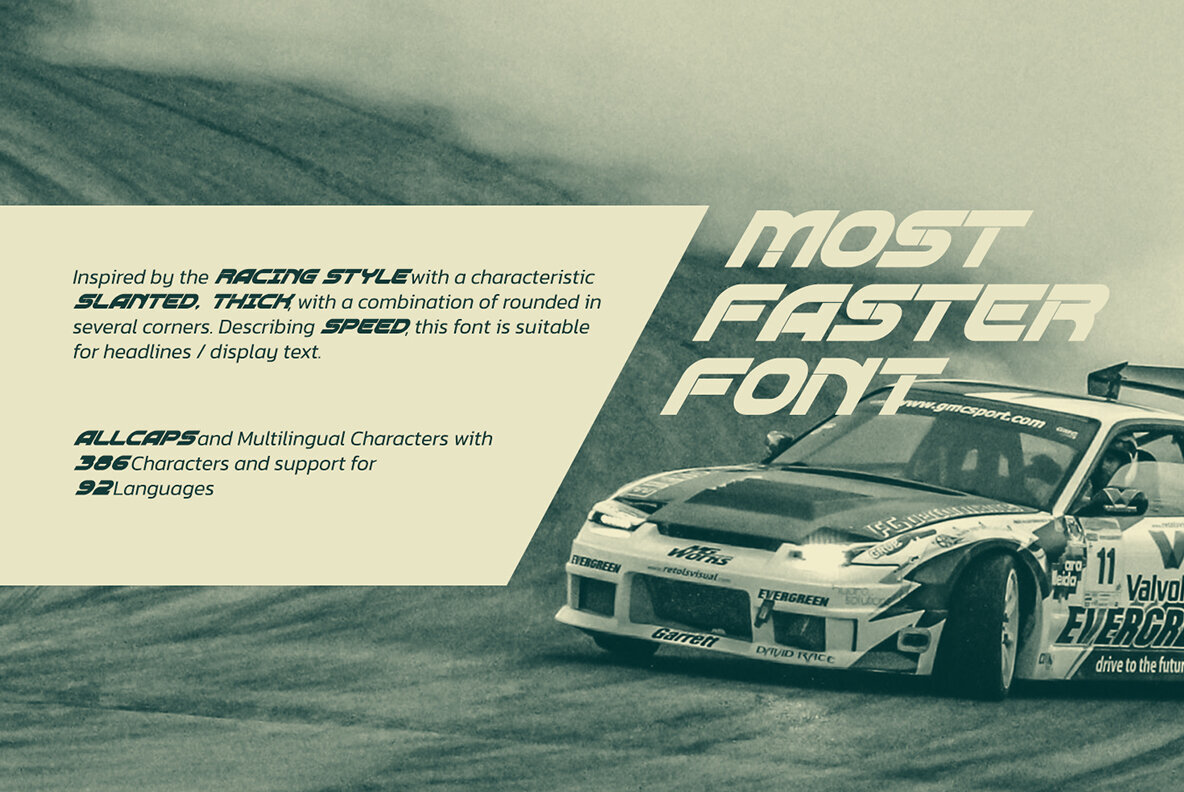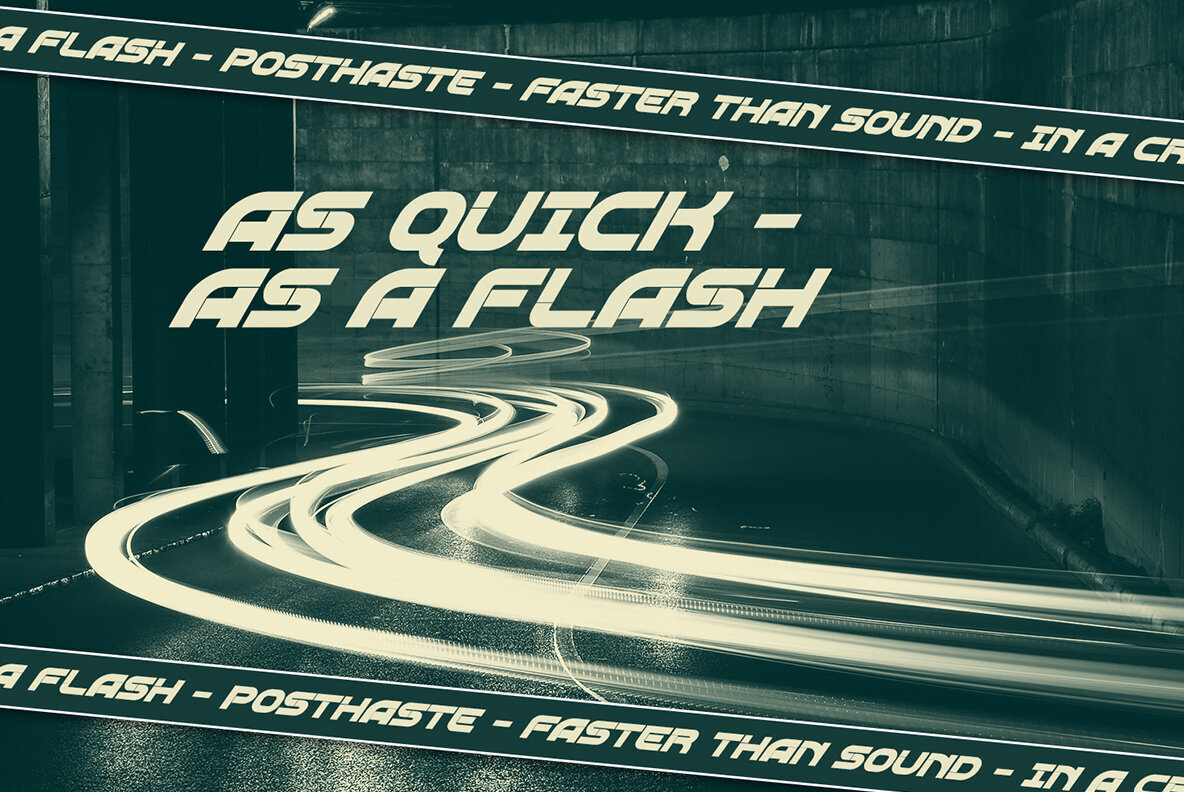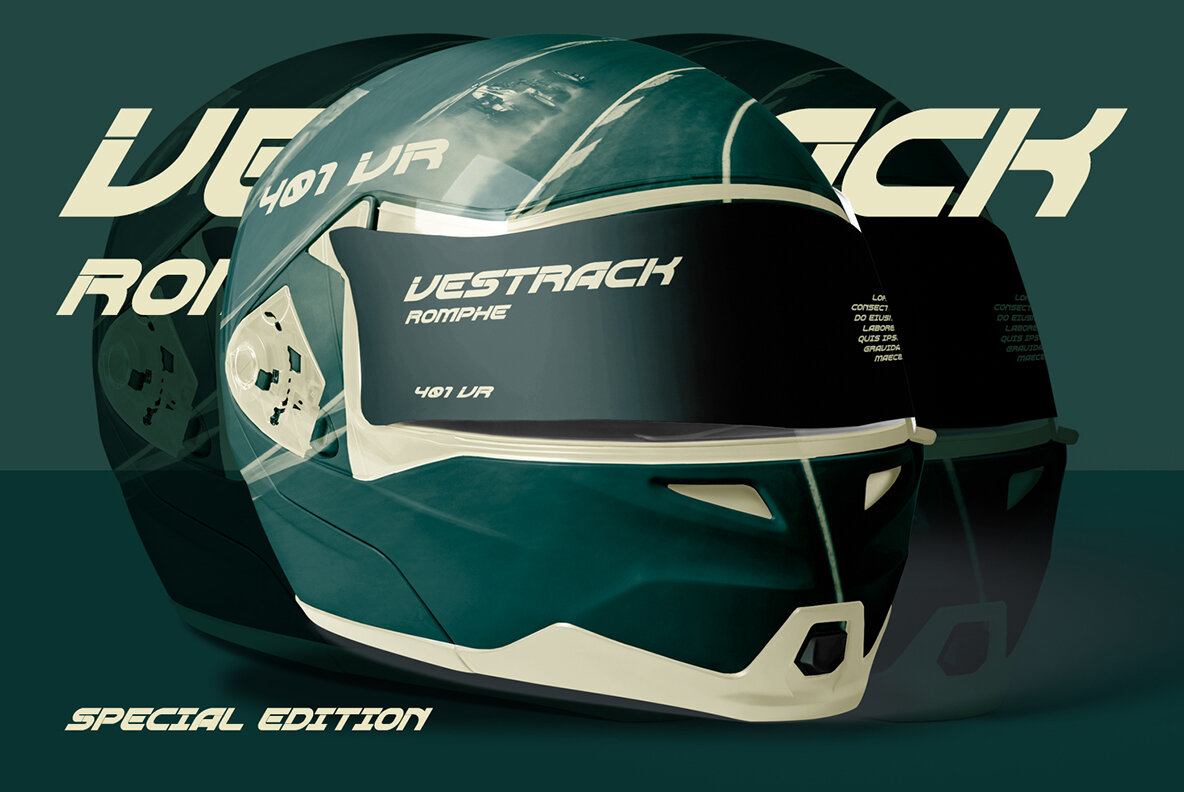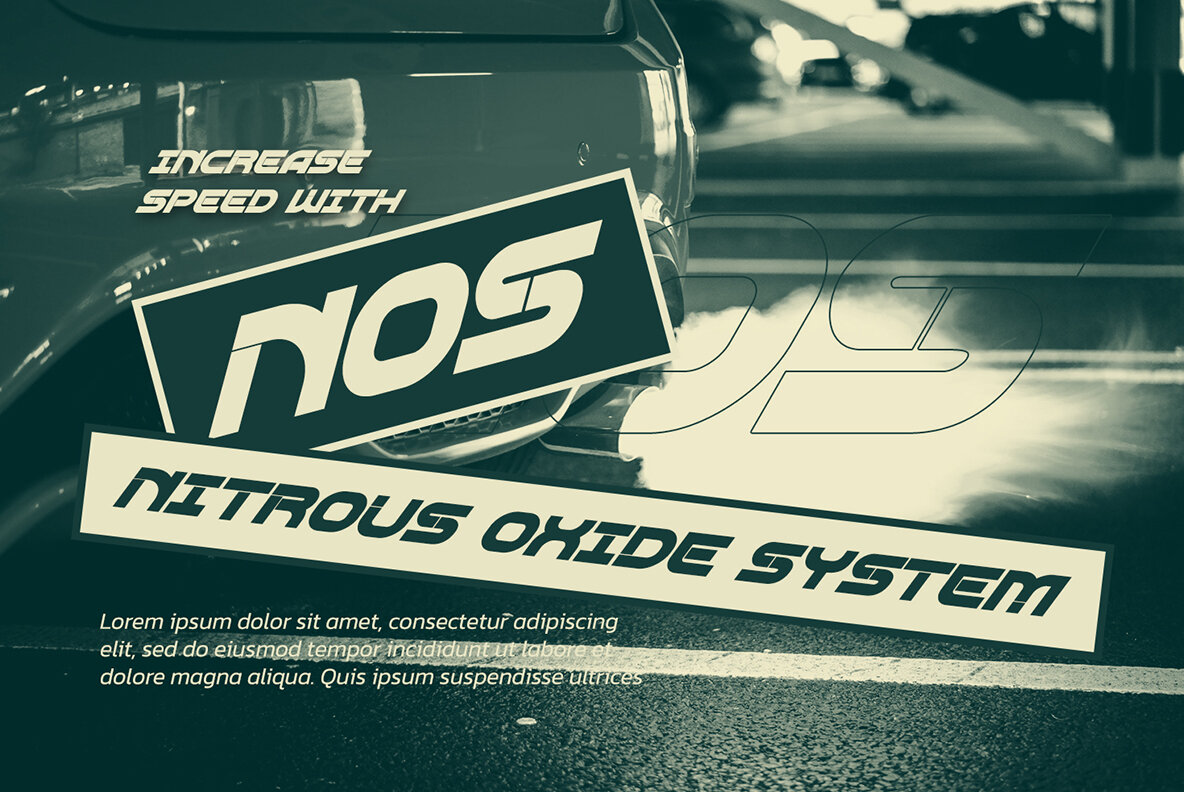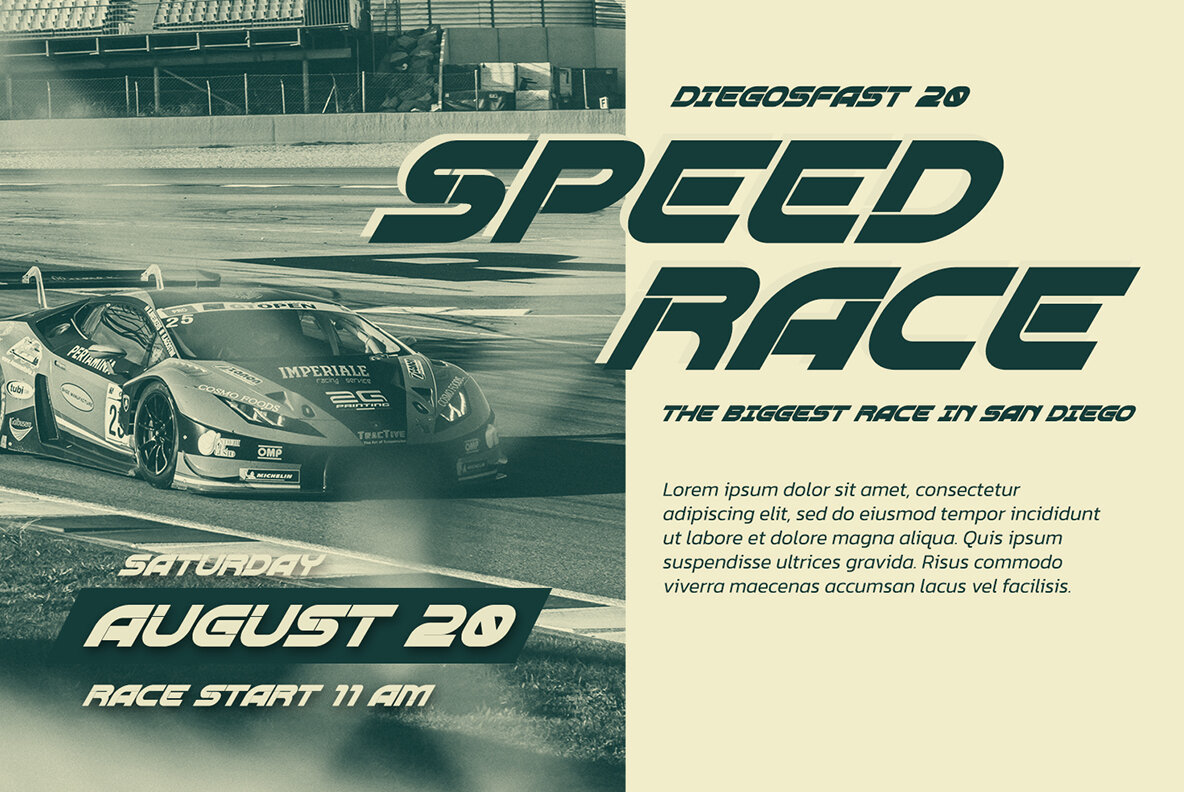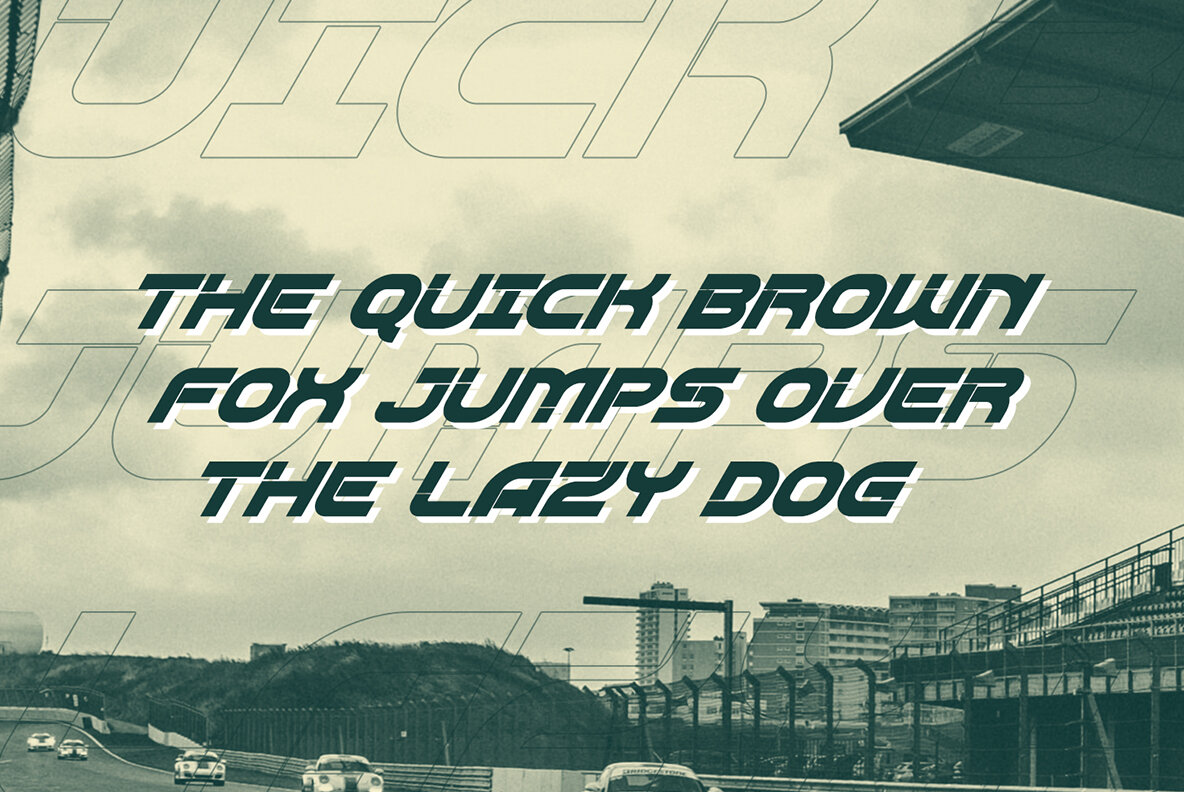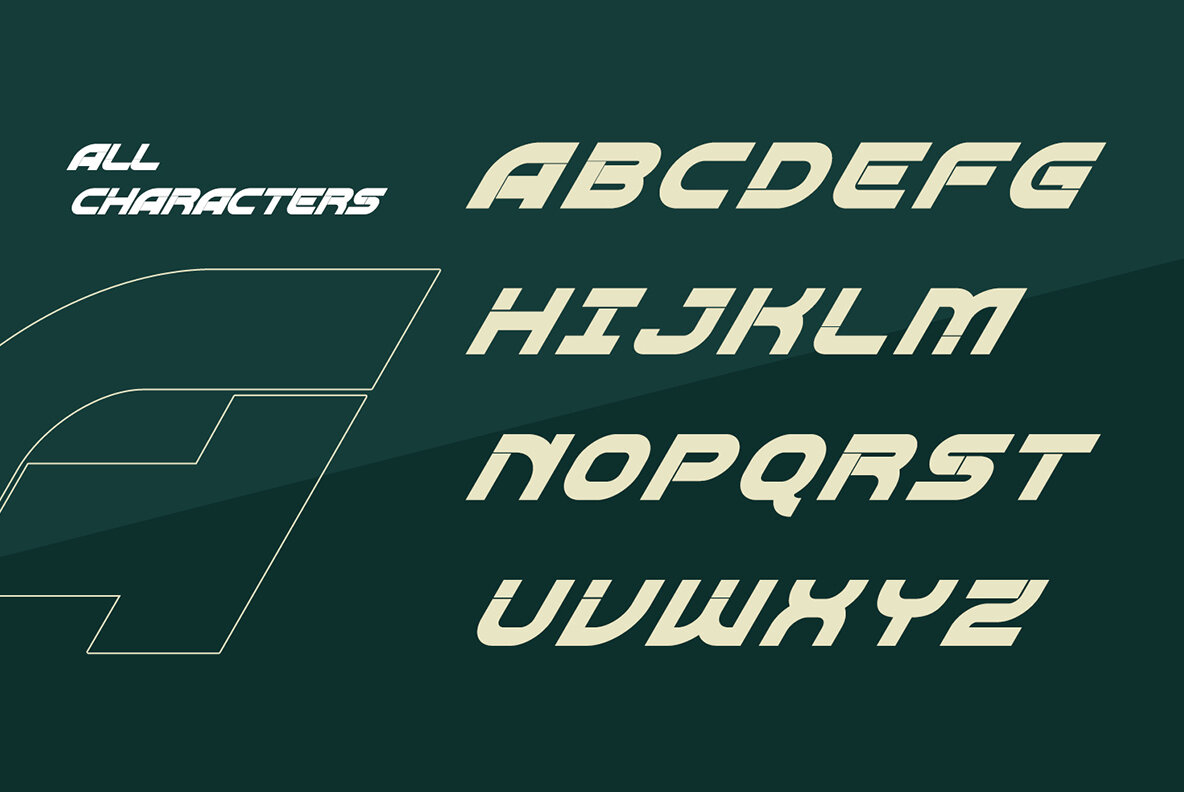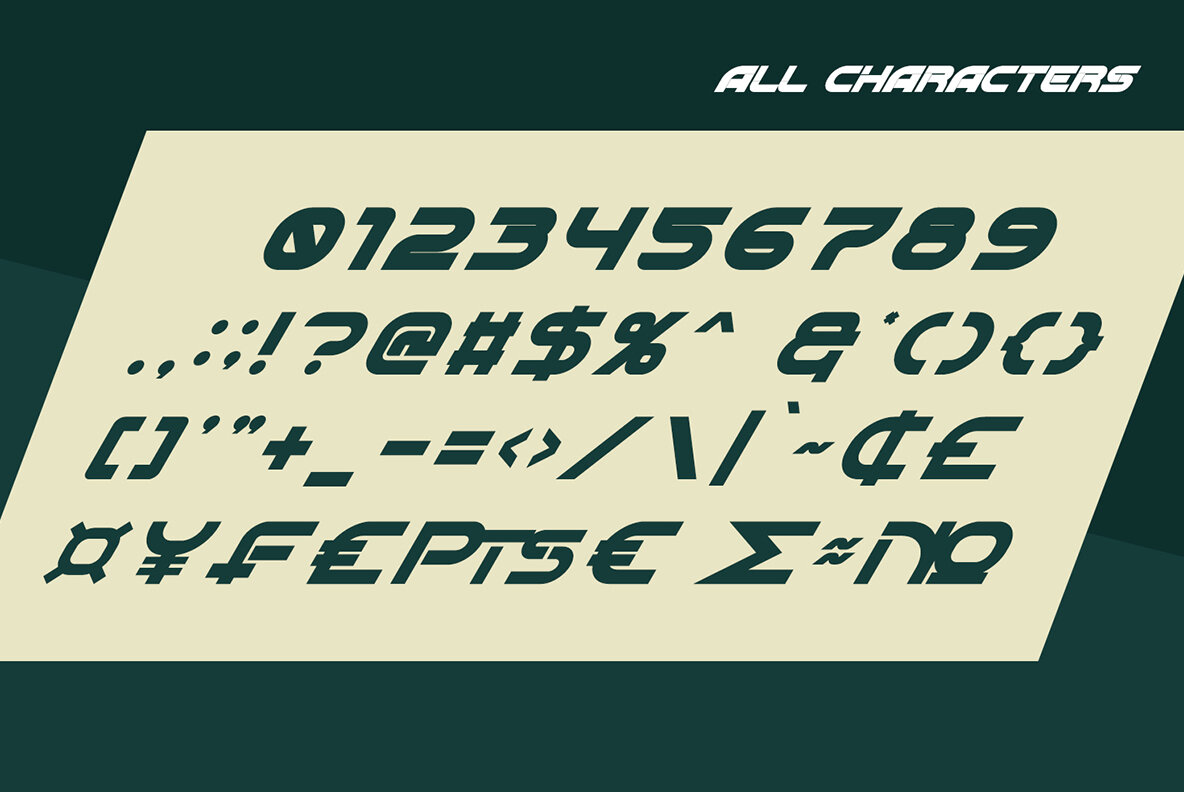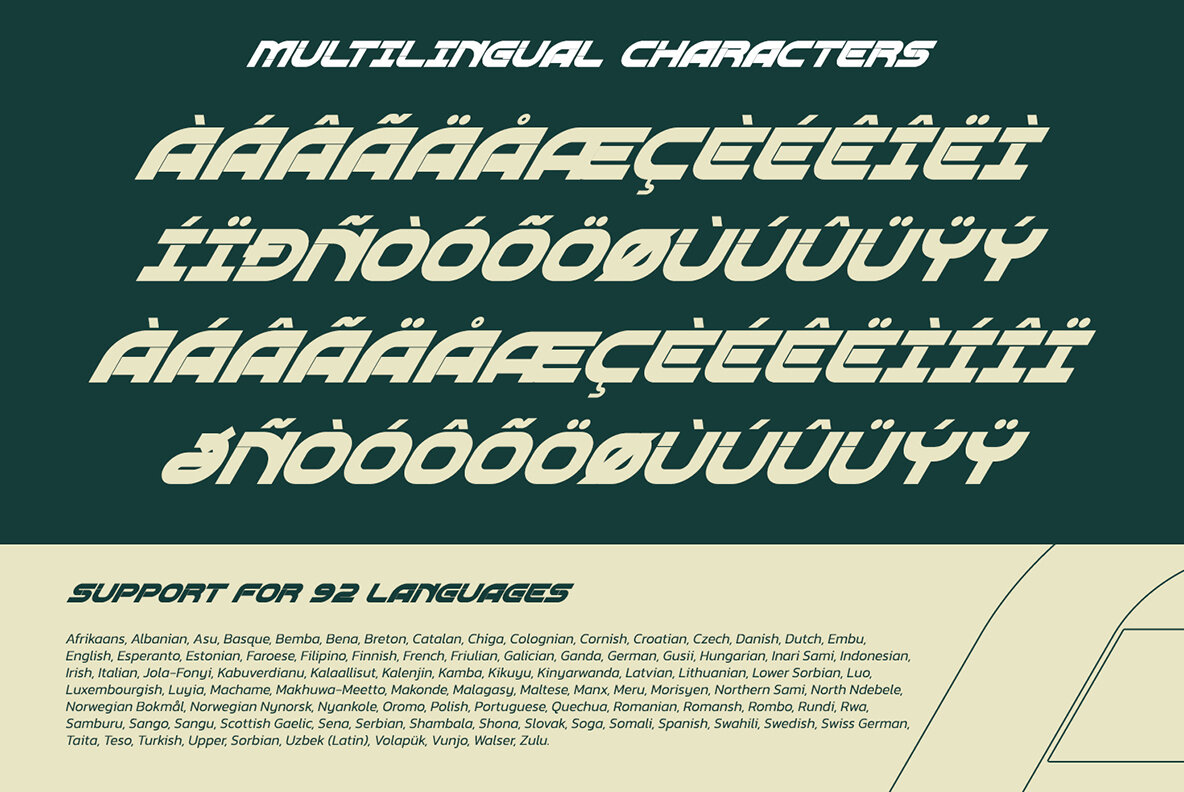
Most Faster Font
Most Faster Regular
Channeling the thrill of the racetrack, Most Faster provides a robust typographical experience with its distinct sharp-angled strokes and all-caps design. Its racing theme evokes a daring, masculine aesthetic, perfect for adding a dynamic edge to your projects. Most Faster excels in applications from posters and banners to logos and merchandise. Its bold presence is perfect for printed media and digital platforms alike. Explore the font preview to discover its full potential. Embrace the power and style of Most Faster in your next design endeavor.Most Faster: A Bold Typeface with Speed-Inspired Design